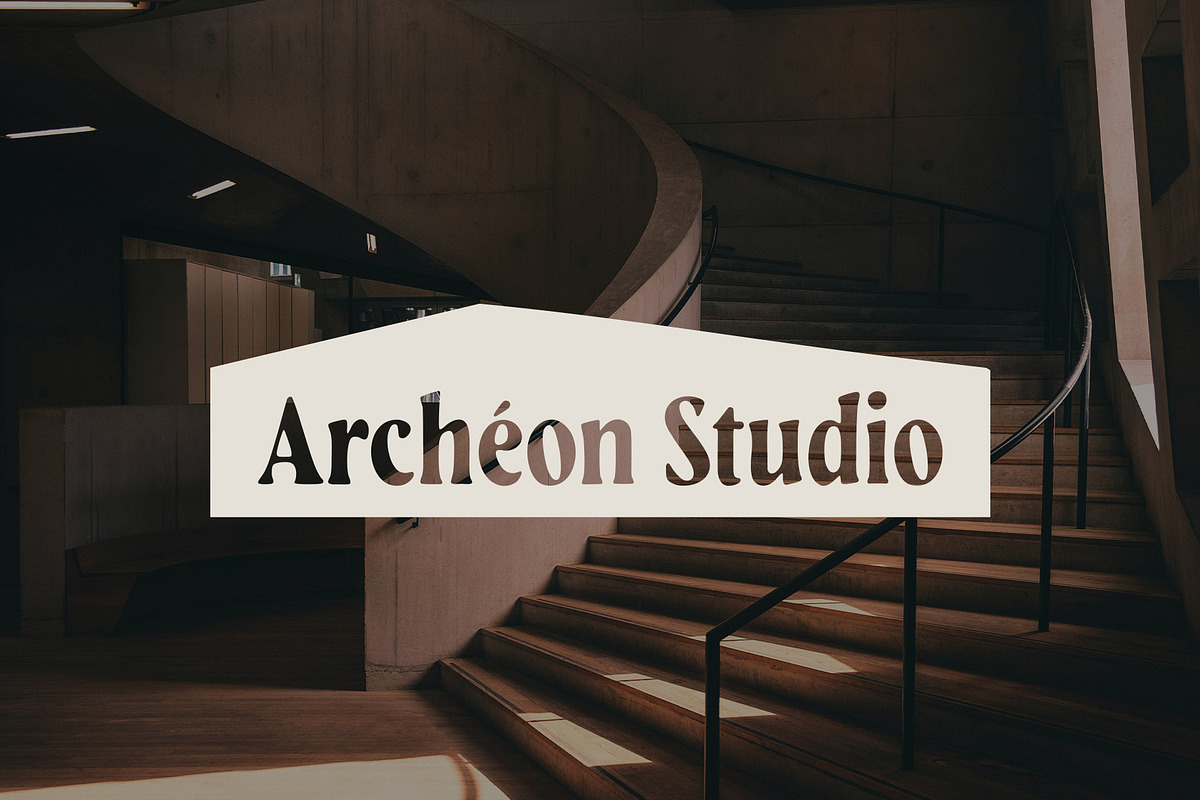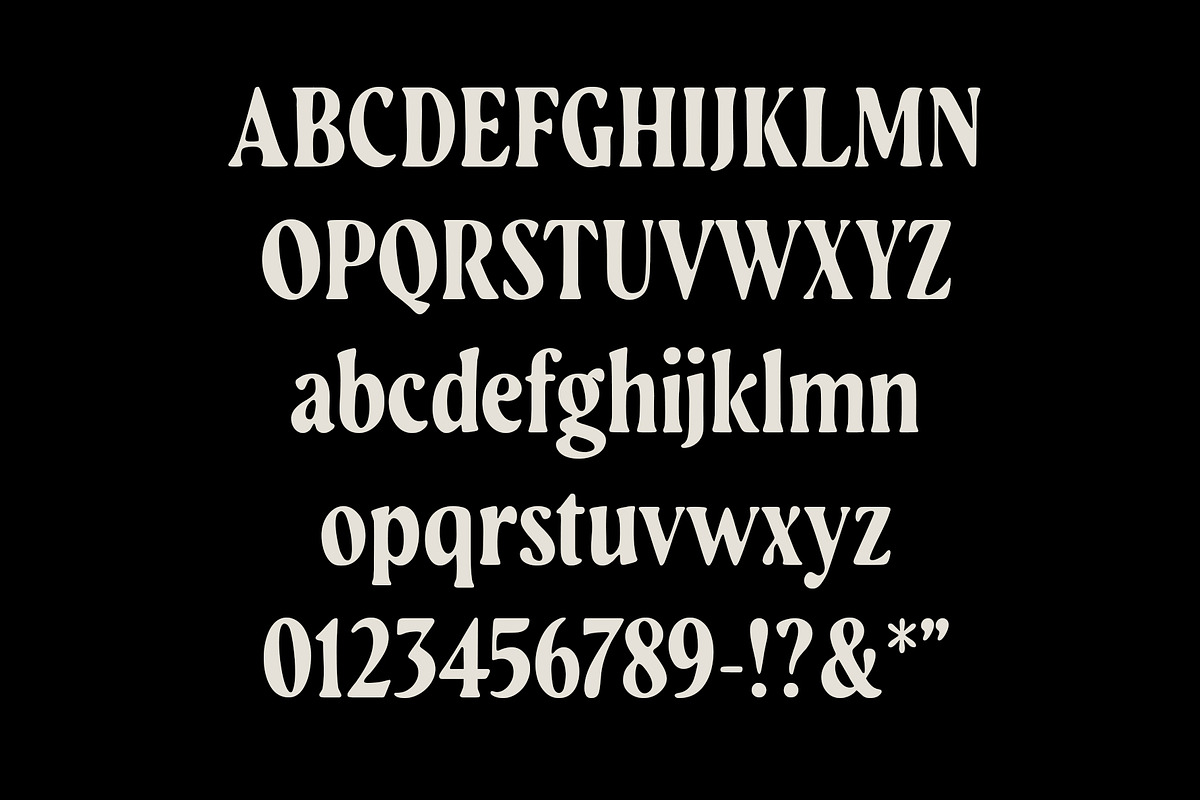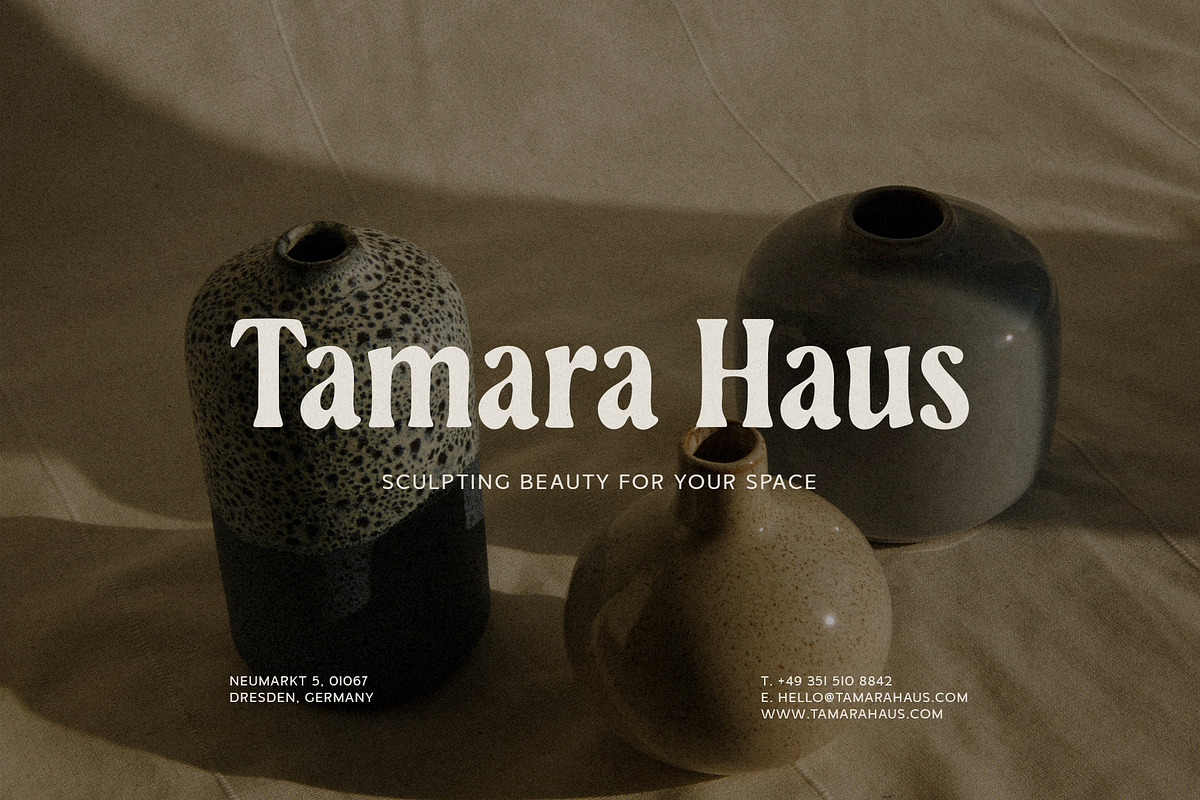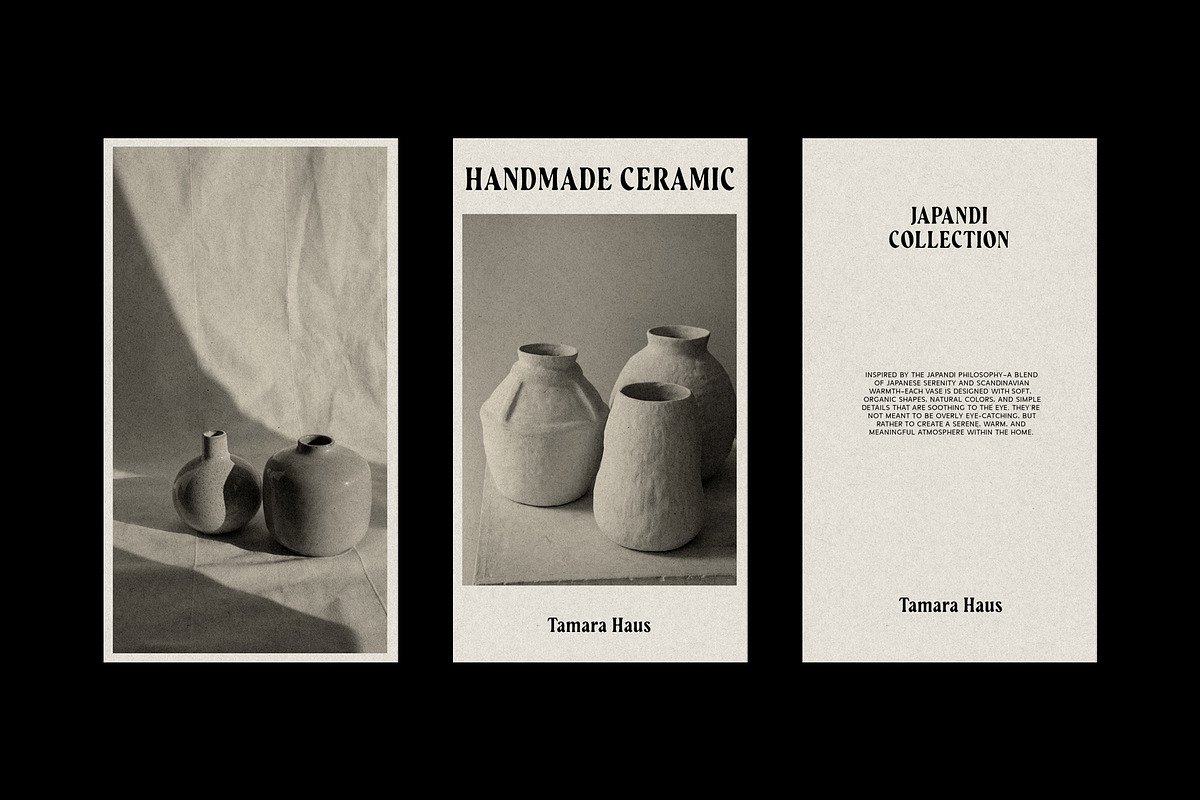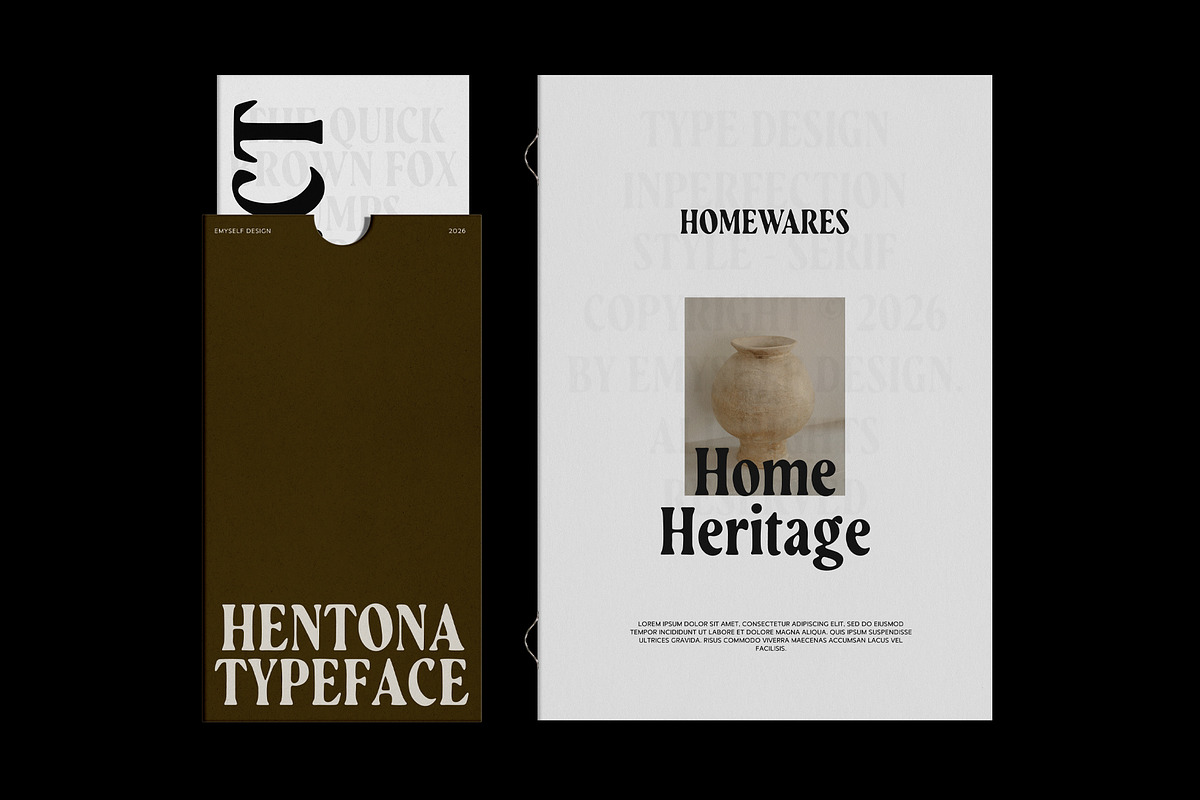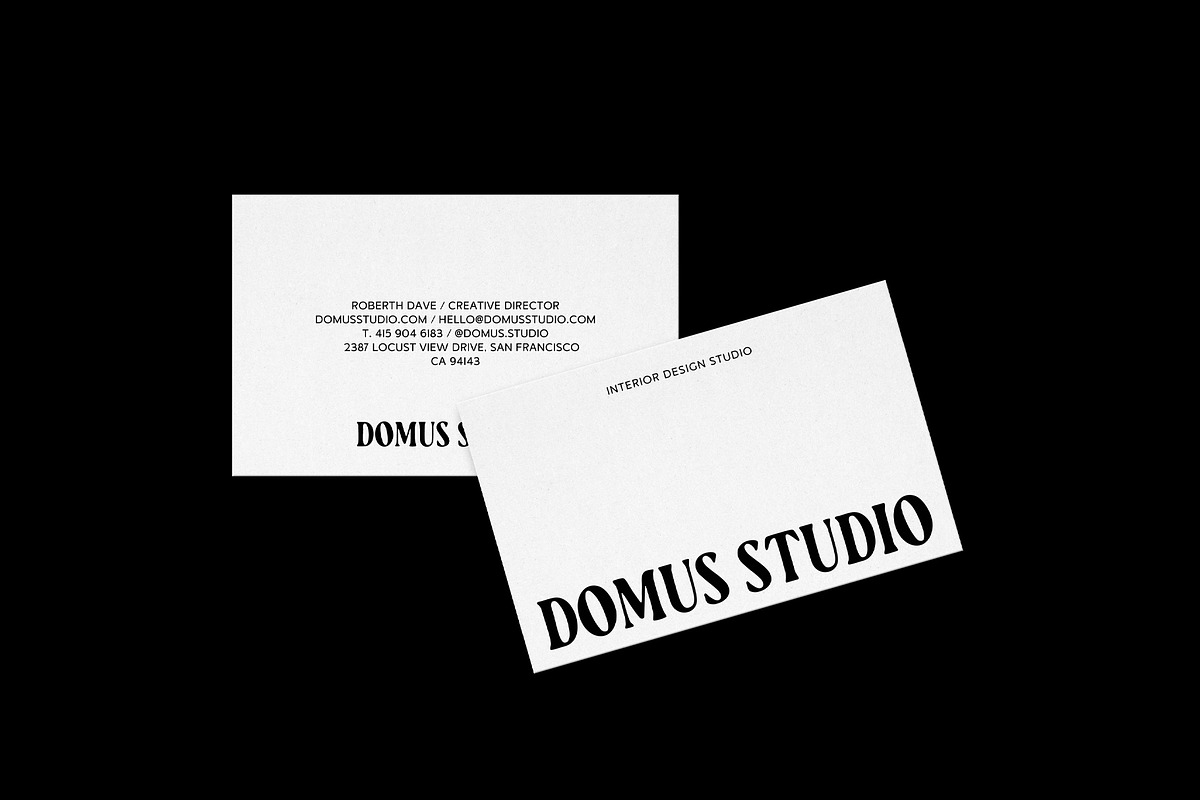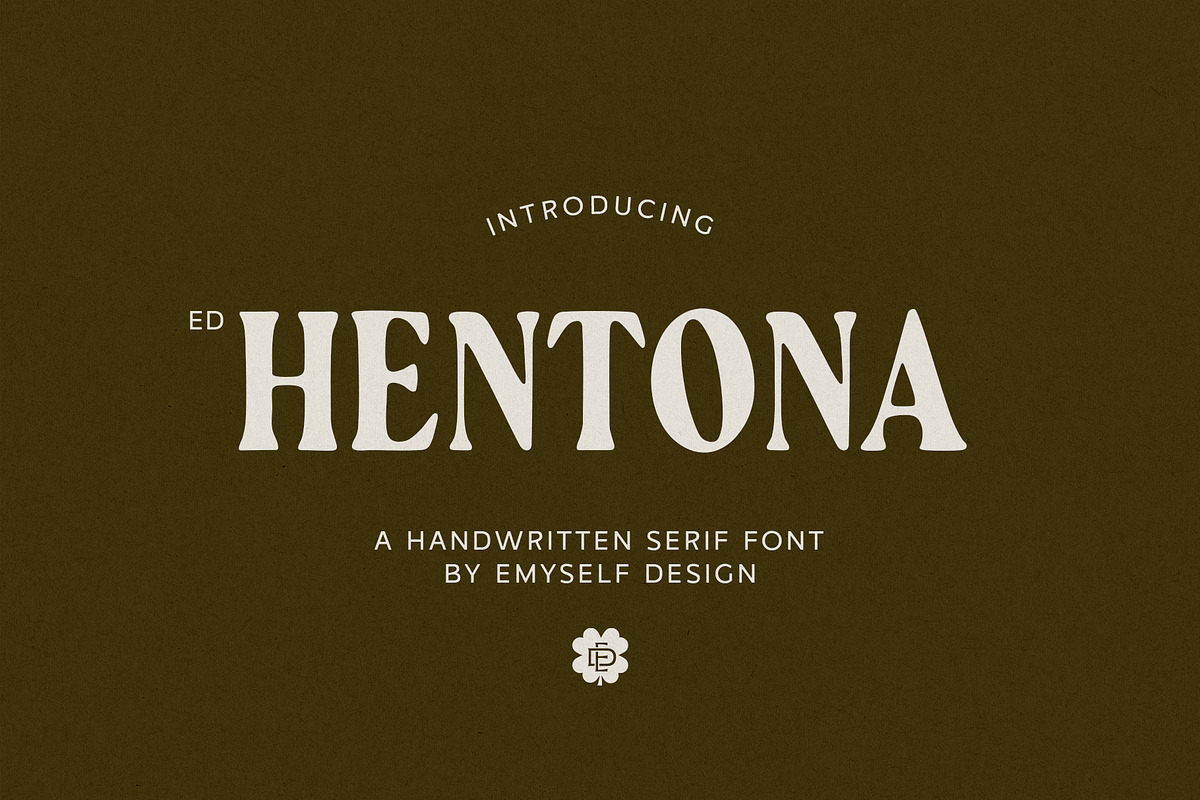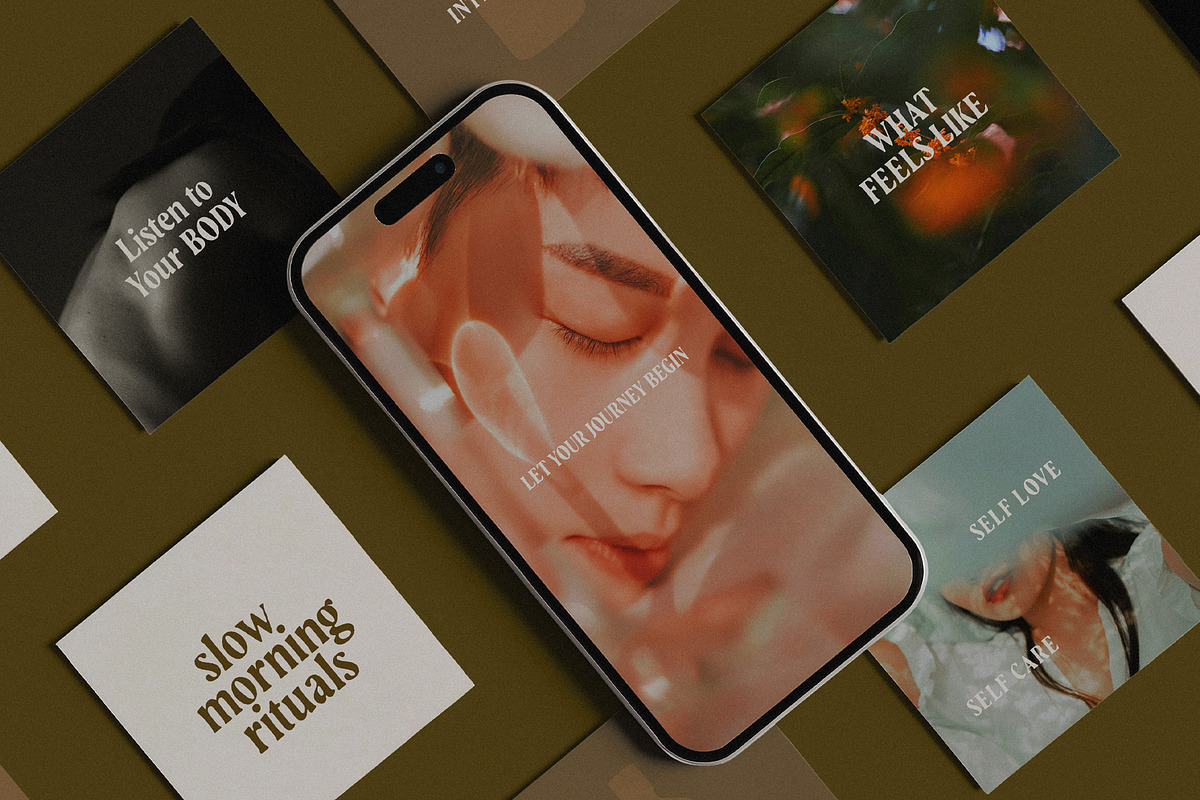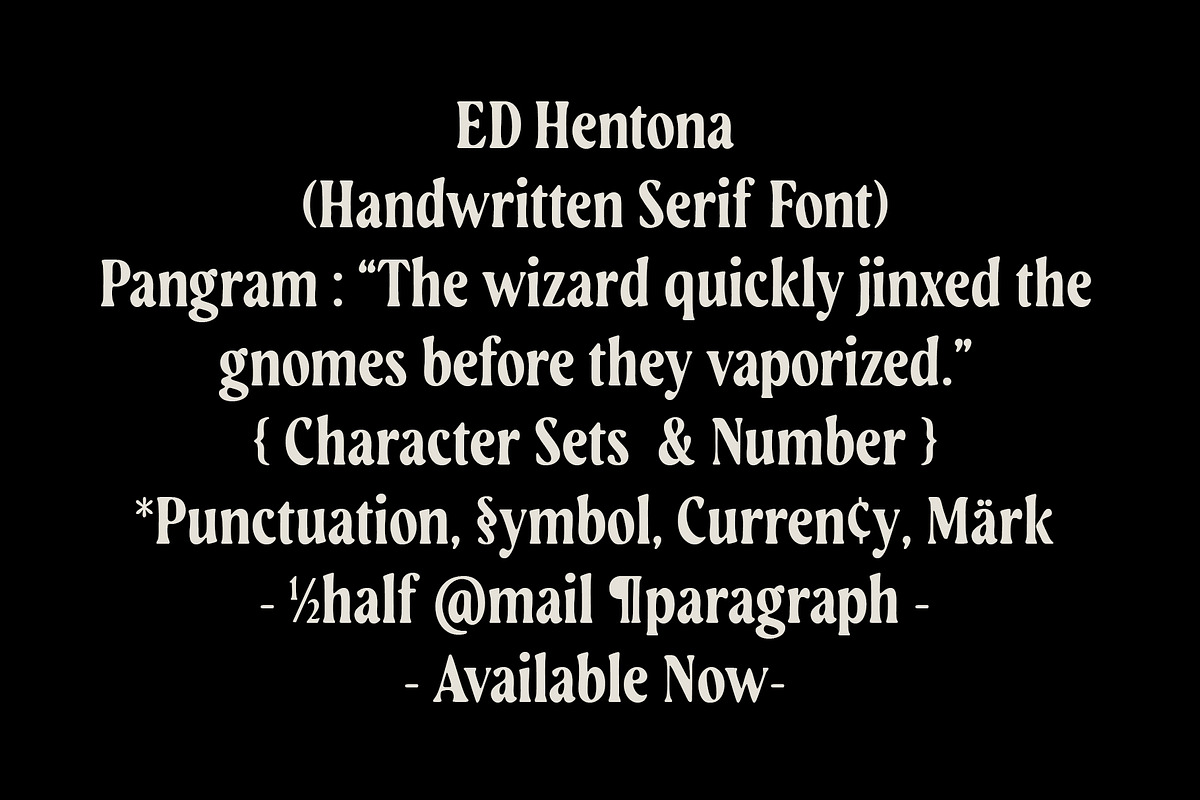
ED Hentona - Handcrafted Serif Font
Meet ED Hentona — a serif typeface born from the warmth of the human hand. Every curve, every stroke carries the beautiful imperfections of handcrafted letterforms, giving your designs an organic soul that no machine-perfect font can replicate. Whether you're building a brand, crafting a label, or designing a social post, ED Hentona brings authenticity and timeless character to every layout.